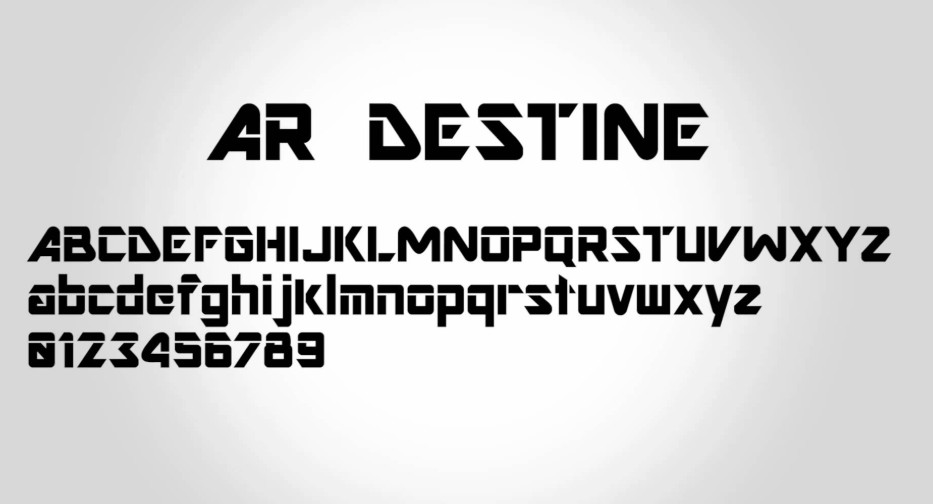
Incredible Ar Fonts Download Ideas. Web install a custom font you have downloaded. This font is so unique that it makes it better than any other serif.
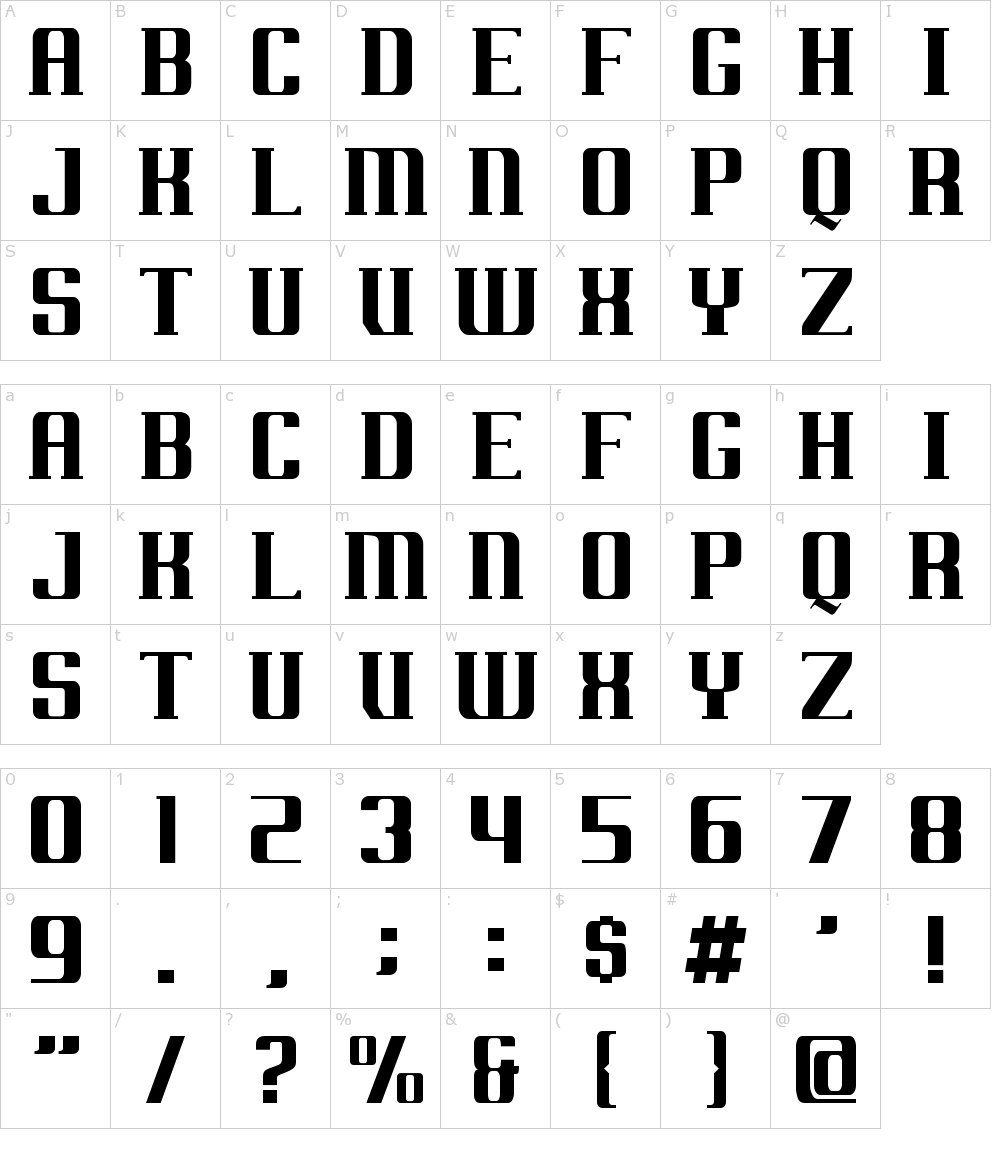
Julien was designed for digital environments and includes numerous letter versions. The online preview allows you to know the fonts. Make your web calligraphically beautiful using unique arabic fonts.
Web ar julian font free download ar julian font is an amazing serif typeface that comes in a super cool bold texture. Link to purchase full version and commercial license : Web big collection of free fonts for download.
Web Ar Destine Font Free Download.
Ar destine is a sans serif font which means basically it does not have the small strokes at the quit of letters. This font is so unique that it makes it better than any other serif. stand out with stylish font designs for your messages, instagram profile, and.